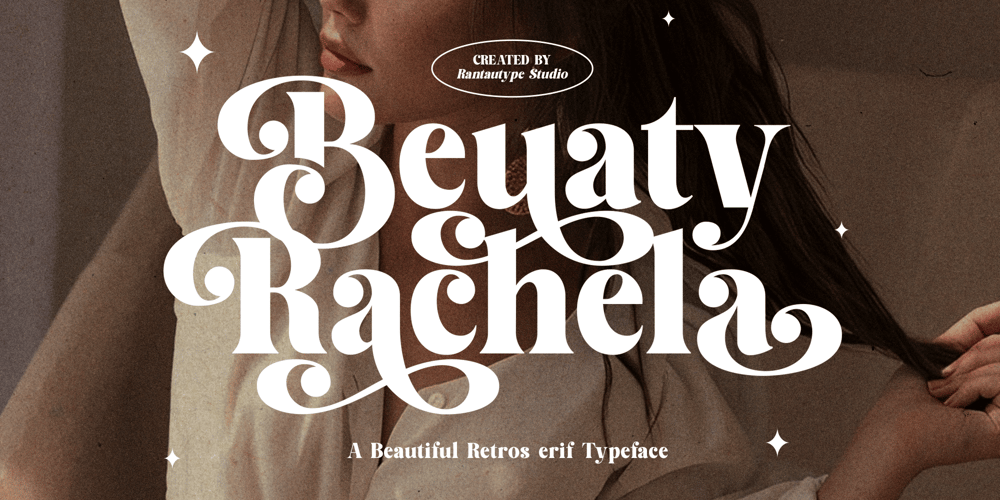
Beauty Rachela Font Family was designed by Yudi Pratama Chandra and published by RantauType. Beauty Rachela contains 2 styles and family package options. Beauty Rachela is a beautiful font that bold curve make it look Unique, elegant, modern, and versatile serif Font. Come with more alternate and ligature you can mix and max to create a more stunning display.Beauty Rachela – separate in reguler and italic, is a beautiful choice for any creative endeavor, creating elegant, modern, chic, lifestyle design such as logos, title, cover, branding, display and magazine, and more. Now you have more choice when using Beauty Rachela for typography.Features: Standar character A-Z and a-z Numberial and Functional Alternate and Ligature Works on PC & Mac Simple installations Accessible in Adobe Illustrator, Adobe Photoshop, Adobe InDesign, even work on Microsoft Word. Fonts include Multilingual Support for: Afrikaans, Albanian, Asu, Basque, Bemba, Bena, Breton, Chiga, Cornish, Dutch, English, Estonian, Filipino, Finnish, Friulian, Galician, Gusii, Indonesian, Irish, Italian, Kabuverdianu, Kalenjin, Kinyarwanda, Luo, Luxembourgish, Luyia, Machame, Makhuwa-Meetto, Makonde, Malagasy, Manx, Morisyen, North, Ndebele, Nyankole, Oromo, Portuguese, Quechua, Romansh, Rombo, Rundi, Rwa, Samburu, Sango, Sangu, Scottish, Gaelic, Sena, Shambala, Shona, Soga, Somali, Spanish, Swahili, Swedish, Swiss, German.Thank you for your purchase!Hope you enjoy with our font!